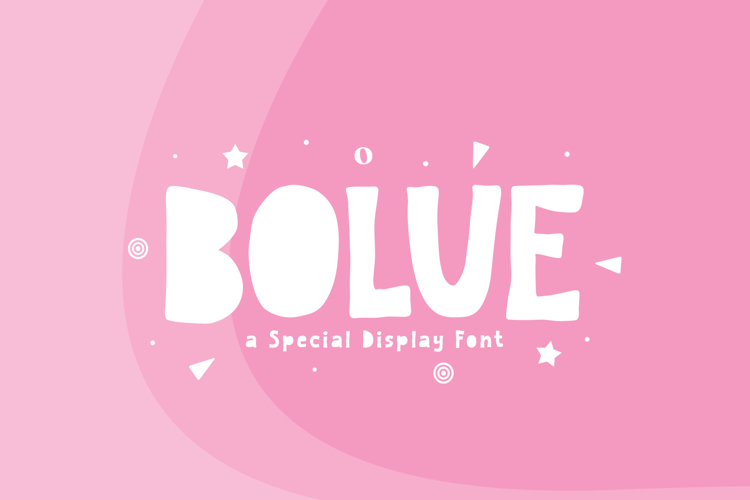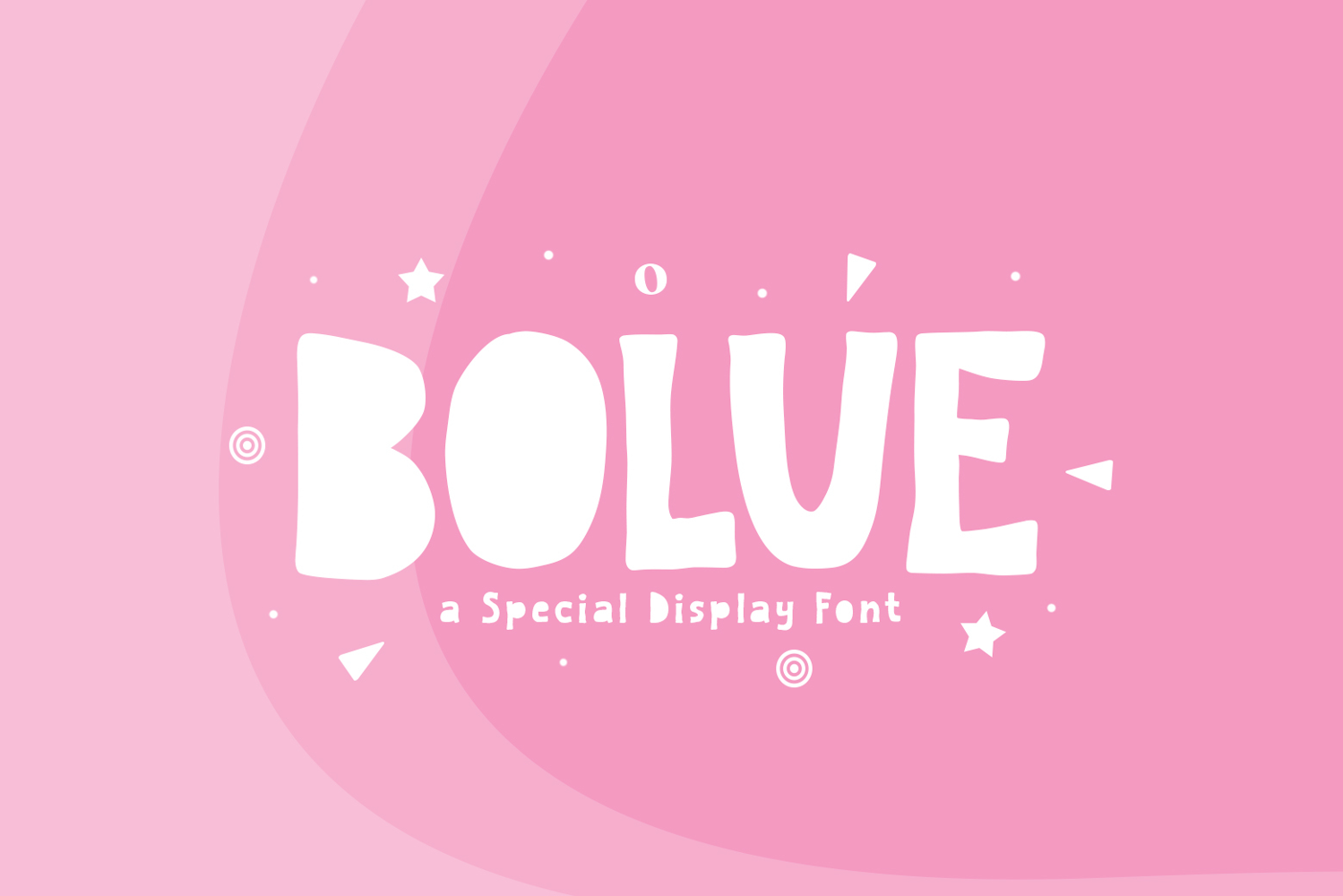
Bolue - Sweet & Playful Display Font
Bring pure childlike wonder to your designs with Bolue's irresistibly sweet and playful display font!
This contemporary handwritten typeface bursts with vibrant personality and spirited energy that instantly captures attention. Every character radiates charm, making it an ideal choice for creating memorable designs that stand out from the crowd.
Bolue's bold presence and delightful character make it incredibly versatile for posters, logos, magazines, book covers, banners, and countless other creative projects. Its irresistible charm seamlessly adapts to diverse applications, transforming ordinary work into extraordinary designs.